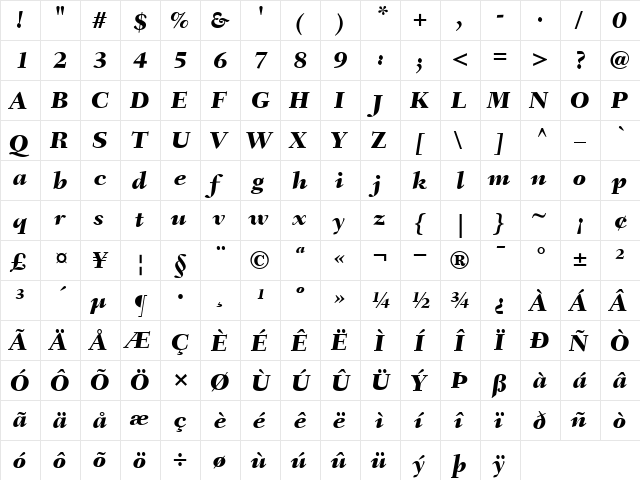
FairfieldLH86-Heavy HeavyItalic
Design Context for FairfieldLH86-Heavy Typeface
FairfieldLH86-Heavy is a composed and adaptable typeface that performs quietly and consistently across a wide range of design contexts. Its italic angle brings a sense of urgency and motion to the letterforms.
Pro Tip: Use FairfieldLH86-Heavy for emphasis, pull quotes, and subheadings where its slanted energy can add rhythm to the layout.